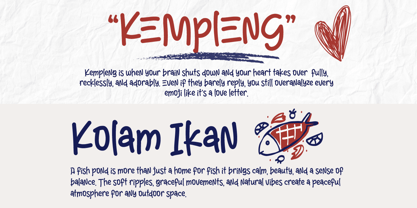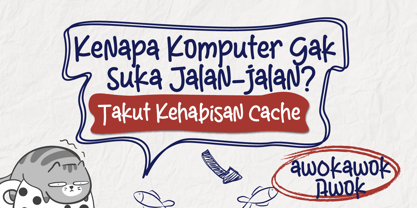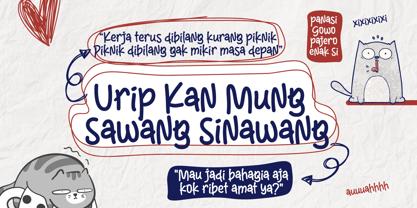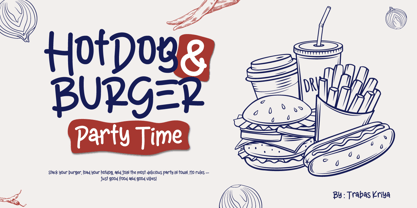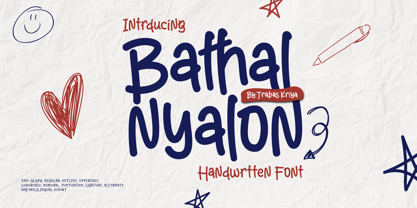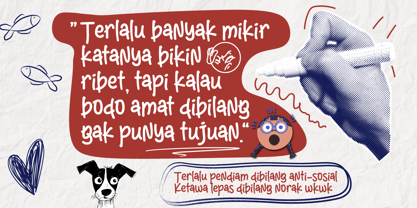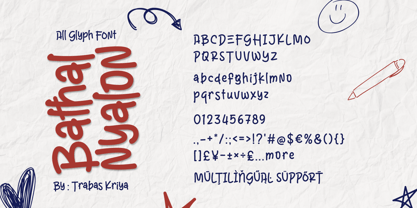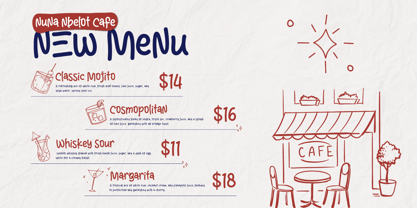
Bathal Nyalon
by Trabas Kriya
The Bathal Nyalon Font Family was designed by Murozakul Akhsan and published by Trabas Kriya. Bathal Nyalon contains 1 styles. More about this family
Bathal Nyalon is a handwritten font that conveys warmth, honesty, and a touch of playful mischief. Crafted with natural-looking strokes and an organic rhythm, this font is designed to convey a personal expression unmatched by traditional digital fonts.
With its free yet legible letterforms, Bathal Nyalon is suitable for a variety of creative applications, from handmade product branding and food packaging to wedding invitations and even social media quotes that seek a more humane feel.
Each letter feels like a sincere stroke, bringing words to life with a personal and touching nuance. Whether for playful, warm, or emotional designs, this font provides an authentic and irreplaceable "handmade" touch."handmade" touch.
Use Bathal Nyalon to bring your designs to life with personality and emotion. Because in a digital world, something that feels human is the most valuable thing.
Designers: Murozakul Akhsan
Foundry: Trabas Kriya